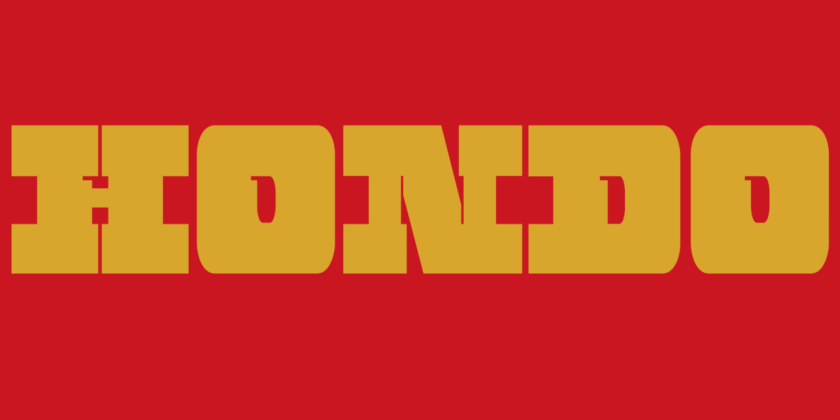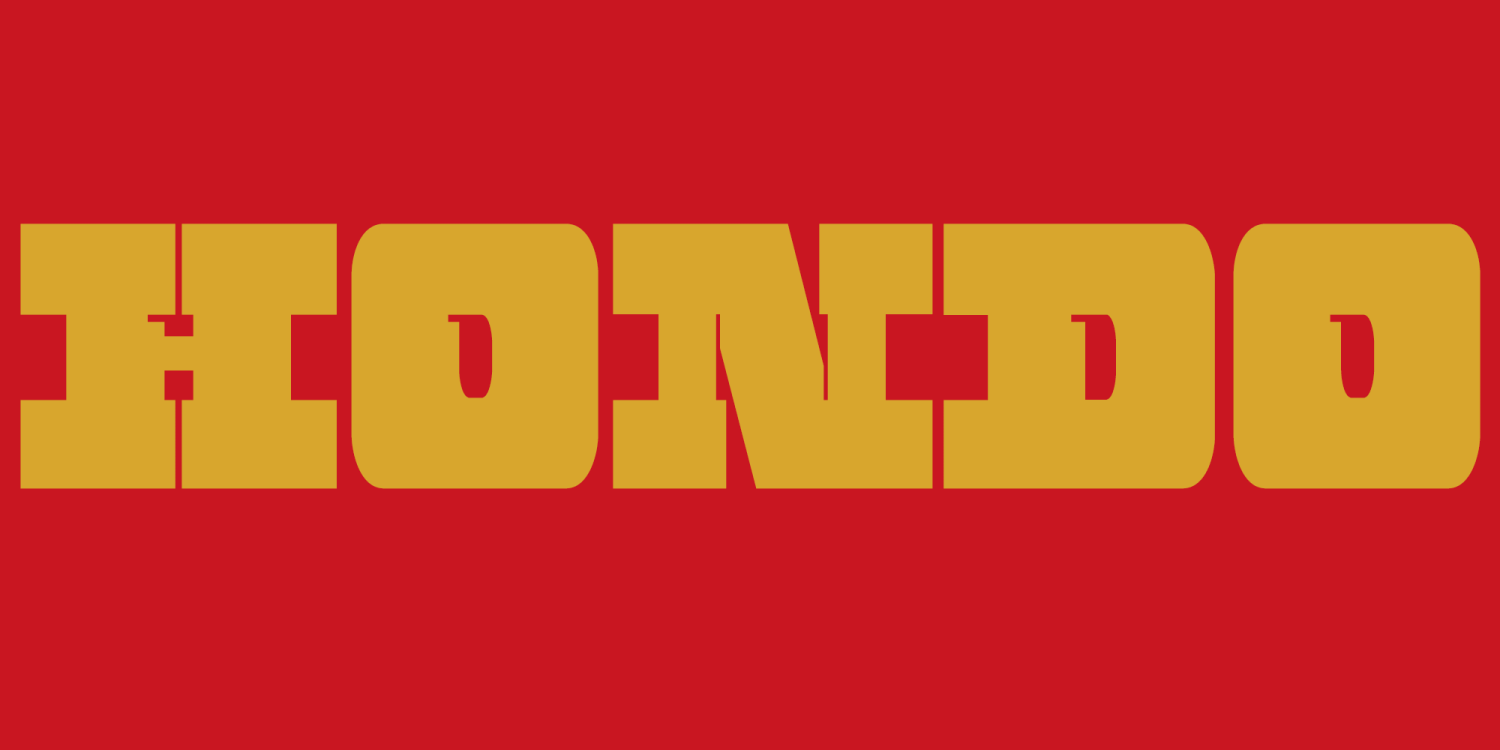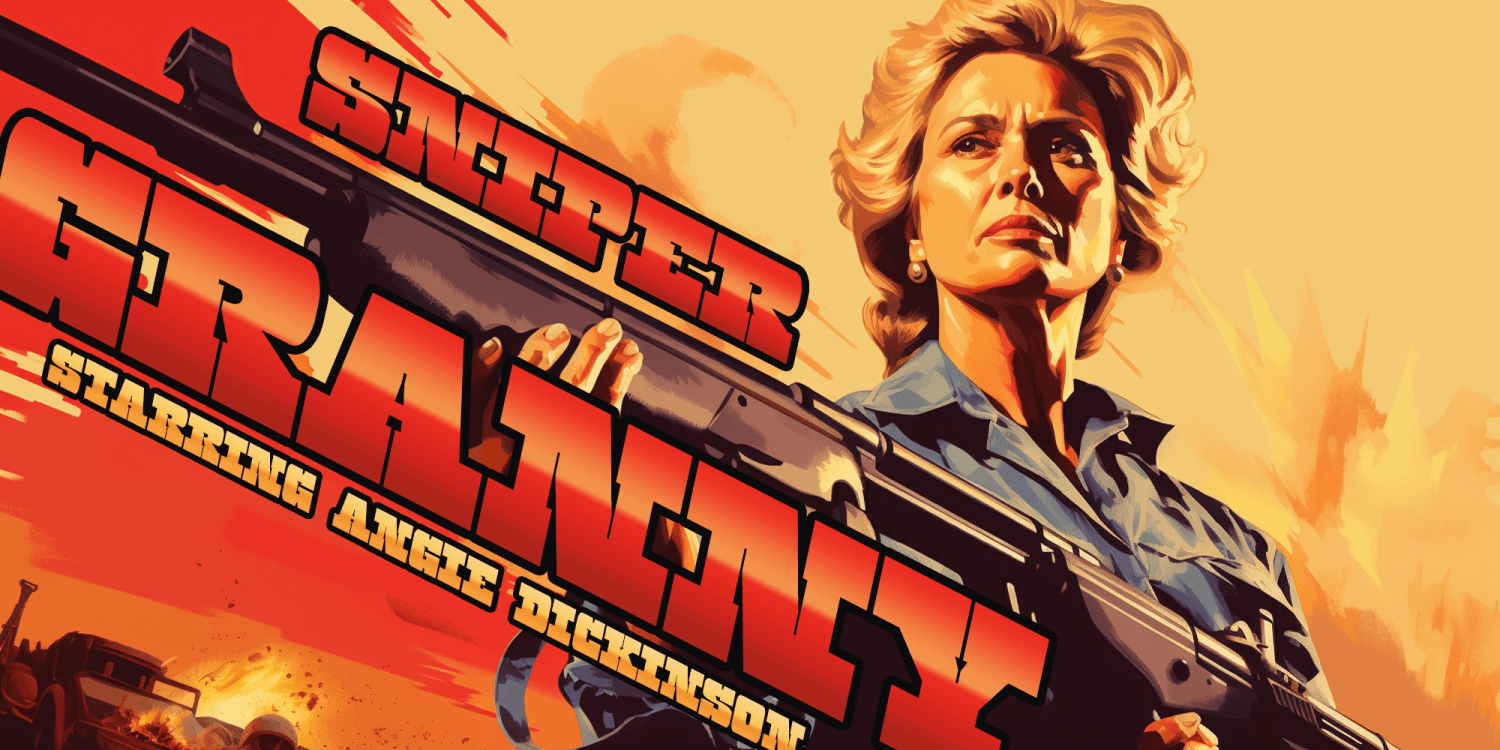
About Hondo
The Old West and Outrageous Woodtype styles collide in this collection of ultrabold slab serif typefaces with a dynamic look. Hondo is accented with decorative and functional inktraps and comes complete with variants of Slant and Backslant styles. This…